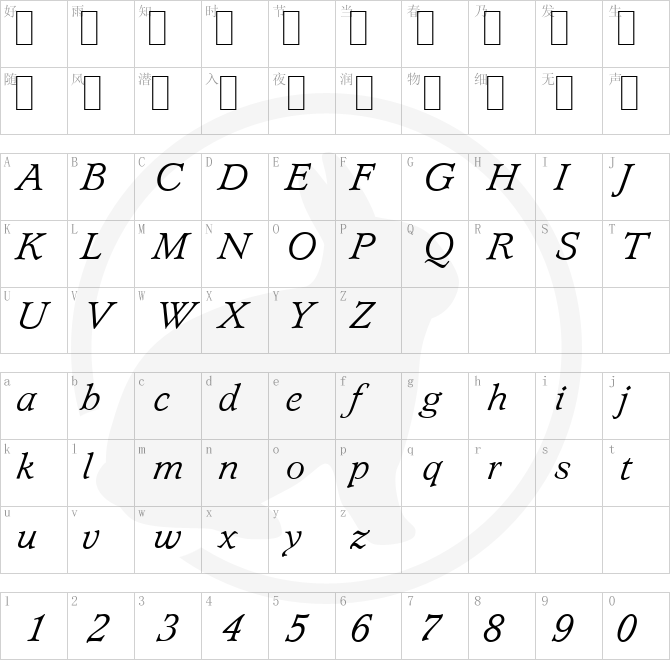
L890-Roman-Italic.ttf is a very beautiful artistic font, L890-Roman-Italic.ttf is widely used in the design and printing of various books and pictures,L890-Roman-Italic.ttf has a strong visual impact,L890-Roman-Italic.ttf is a commonly used font in newspapers, magazines and books, and is used in posters, e-commerce Poster design, store design, logo design, font design and other fields.L890-Roman-Italic.